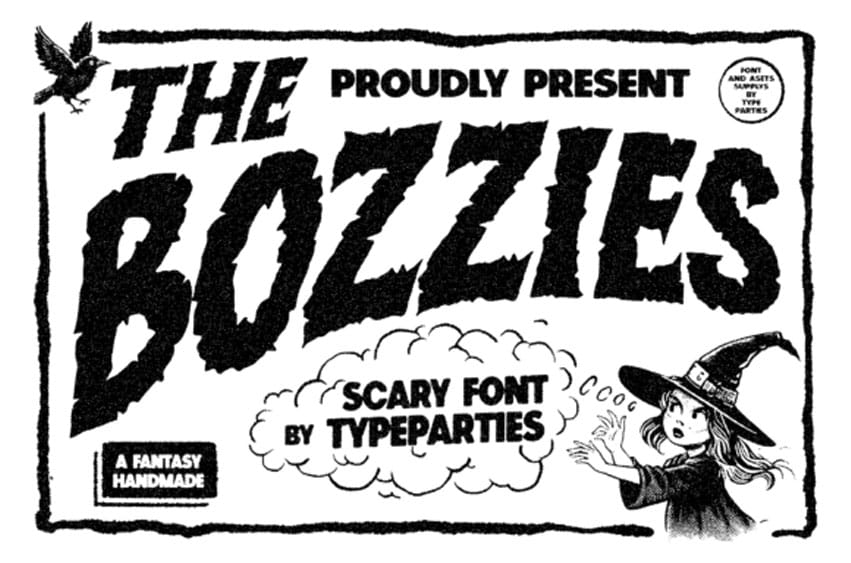
Bozzies Font is a rough, spooky font designed to evoke a sense of eerie unease and macabre atmosphere.
The letters are often jagged and irregular, with rough edges and uneven lines that give them a distressed, hand-drawn appearance.